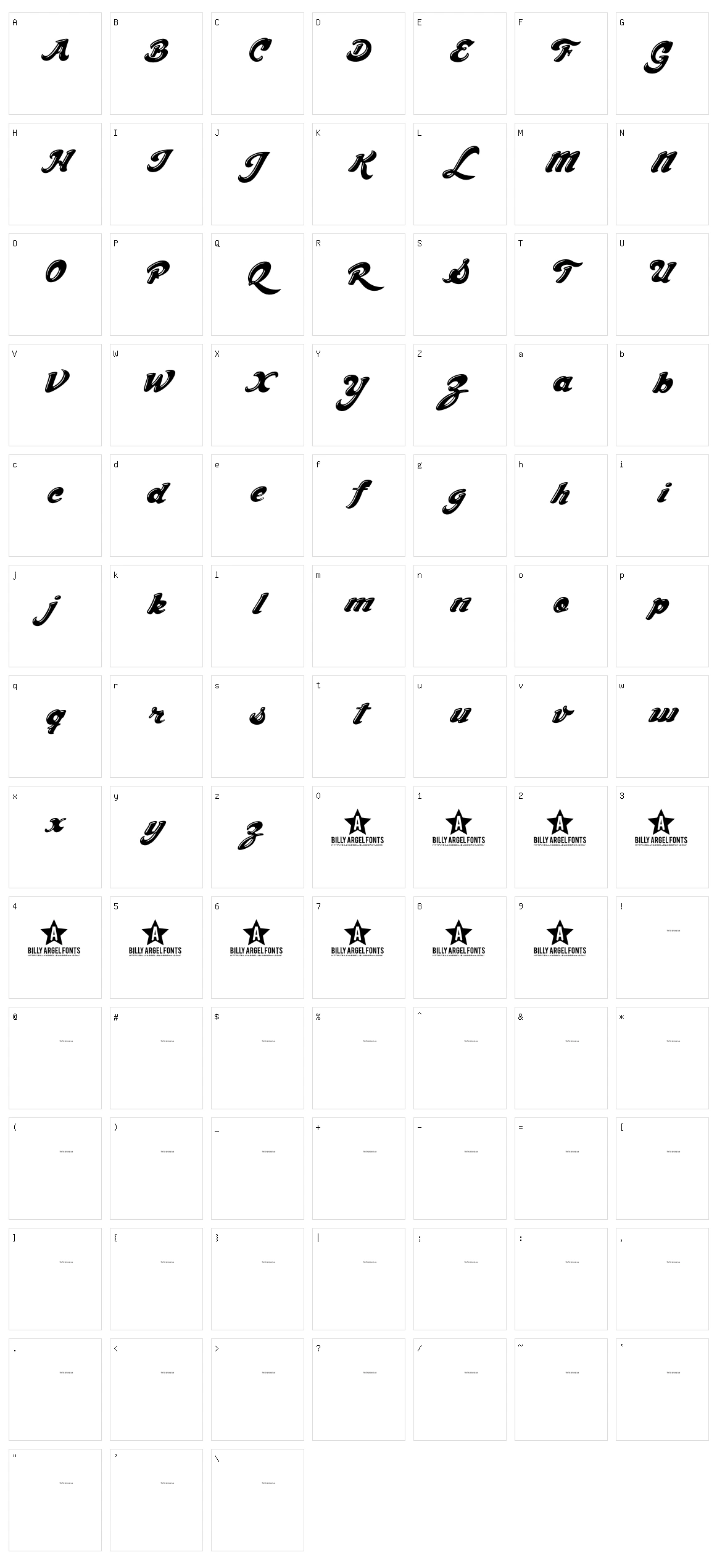
The free font Chocolate Dealer is carefully designed by Billy Argel Fonts ®, showcasing a thoughtful balance of creativity and usability and falls under the Groovy font style. When you download the ZIP file, it contains only 322.56 KB of font files, making it lightweight and quick to download. Please review the license details below to understand permitted usage and distribution rights. If license information is not available, we recommend using this font for personal projects only or contacting the author directly for commercial usage permissions.